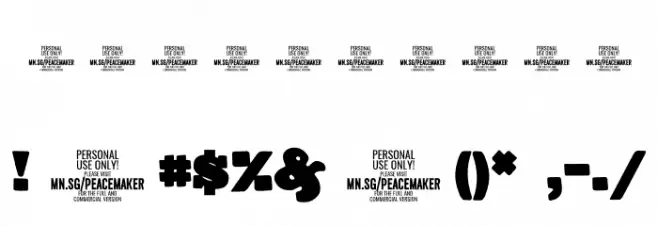
Peacemaker Black PERSONAL USE Regular Font
Peacemaker Black PERSONAL USE Regular Description
This font features bold, impactful characters with a strong presence, making it ideal for attention-grabbing designs. The uppercase letters are robust and commanding, while the lowercase letters maintain a consistent weight, offering a cohesive look. The font includes a full set of numerals and a variety of special characters, ensuring versatility in design applications. Its thick strokes and minimal contrast give it a powerful, authoritative appearance, suitable for projects that require a bold statement.
A bold, impactful font with strong, commanding characters from Uncategorized fonts.
- Proposed Projects: Ideal for posters, headlines, branding, and any design requiring a bold statement.